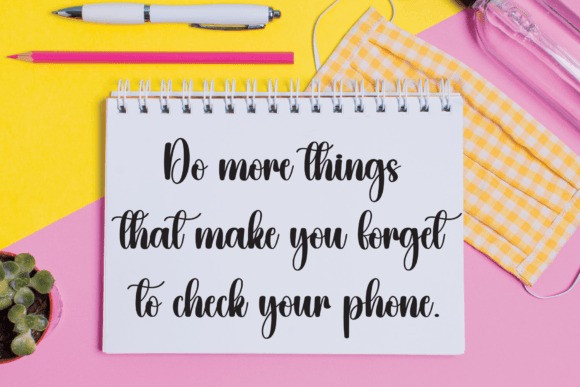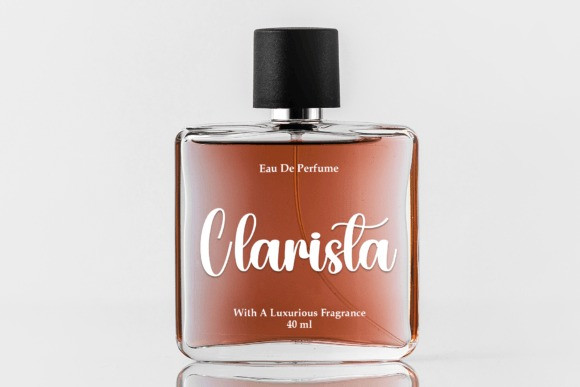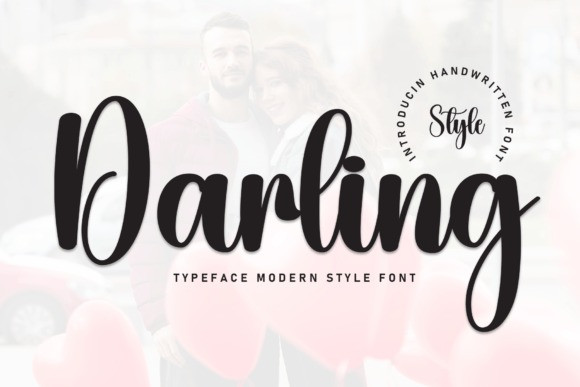
Darling Script Type
Darling Script Type is a flowing handwritten font, described by an elegant touch, perfect for your favorite projects. Fall in love with its incredibly distinct and timeless style and use it to create spectacular designs!